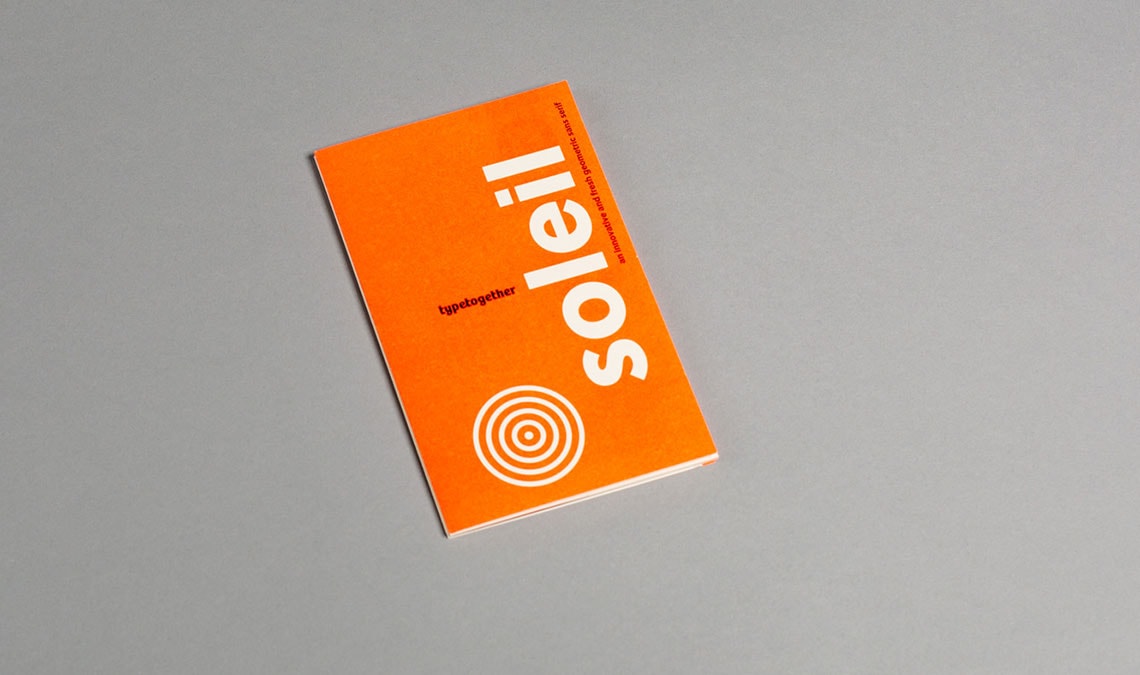
Soleil Specimen
Talented designer Wolfgang Homola designed this beautiful fold-out in leporello style featuring Homola’s Soleil typeface, a geometric sans perfect for text and headline. It folds out to 17×63 cm and has been printed by PB tisk  on Munken Print Cream.